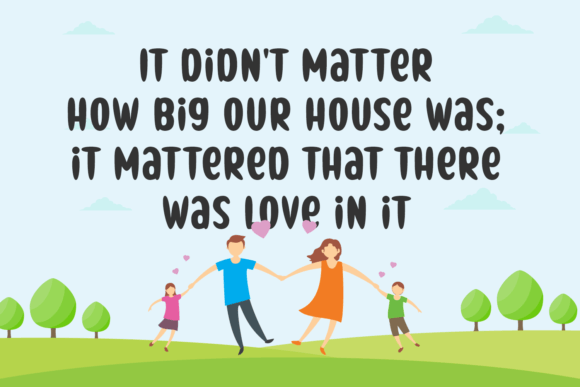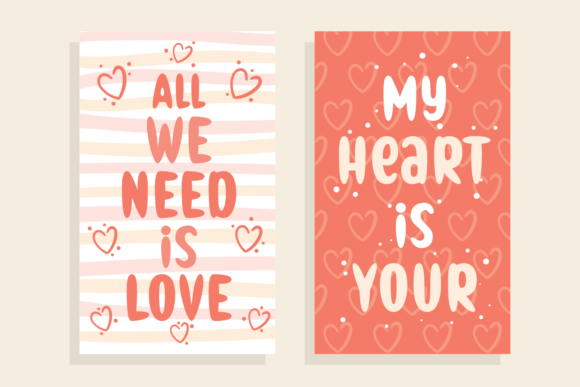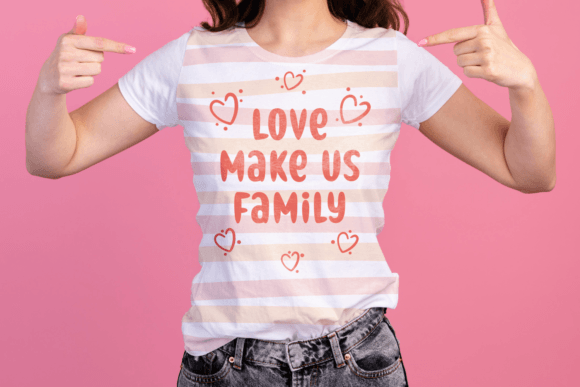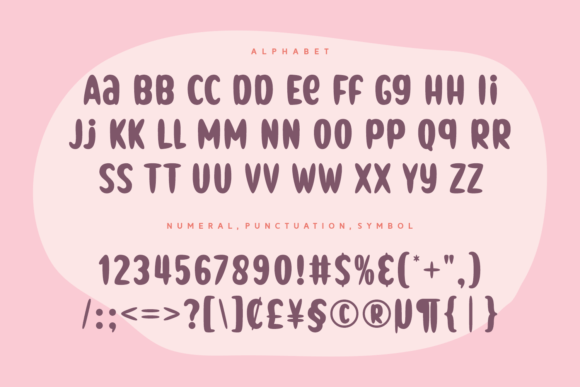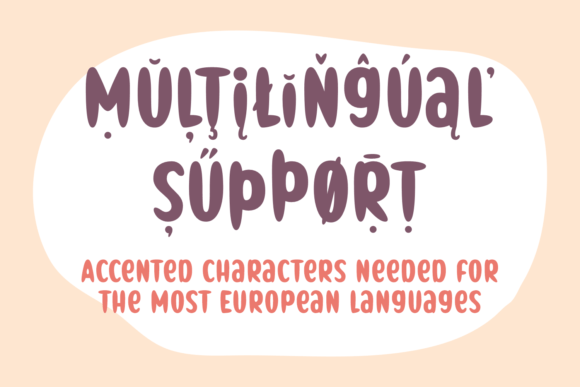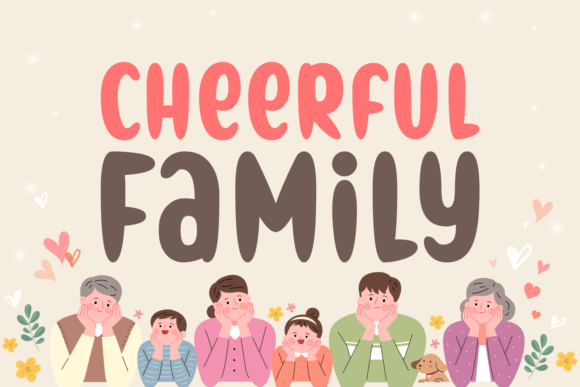
Introducing Cheerful Family Font: The Perfect Addition to Your Design Arsenal
Are you tired of using the same old fonts in your designs? Do you want to add a playful touch to your invitations, cards, logos, and more? Look no further than Cheerful Family Font, a fun and friendly script font that’s sure to bring a smile to your face. In this article, we’ll dive into the world of Cheerful Family Font and explore its features, benefits, and uses.
What is Cheerful Family Font?
Cheerful Family Font is a script font that exudes a whimsical feel with its light-hearted curves and bouncy baseline. Its unique design makes it perfect for adding a playful touch to any design, from kids’ party invitations to brand logos. This font is sure to capture the attention of your audience and leave a lasting impression.
Key Features of Cheerful Family Font
- Whimsical Design: Cheerful Family Font boasts a unique and playful design that’s sure to add a touch of fun to your designs.
- Light-Hearted Curves: The font’s curves are smooth and light-hearted, giving it a friendly and approachable feel.
- Bouncy Baseline: The bouncy baseline adds a sense of energy and playfulness to the font, making it perfect for designs that need a little extra oomph.
- Versatile: Cheerful Family Font is perfect for a wide range of designs, from invitations and cards to logos and more.
Benefits of Using Cheerful Family Font
So why should you choose Cheerful Family Font for your designs? Here are just a few benefits of using this amazing font:
- Adds a Playful Touch: Cheerful Family Font is the perfect way to add a playful touch to your designs, making them more engaging and fun.
- Unique and Memorable: The font’s unique design makes it sure to leave a lasting impression on your audience.
- Easy to Read: Despite its playful design, Cheerful Family Font is easy to read, making it perfect for designs that need to convey a message.
- Customizable: Cheerful Family Font is highly customizable, allowing you to adjust the font size, color, and more to fit your design needs.
Uses for Cheerful Family Font
So what can you use Cheerful Family Font for? The possibilities are endless! Here are a few ideas to get you started:
- Invitations: Use Cheerful Family Font to create playful and fun invitations for kids’ parties, baby showers, and more.
- Cards: Add a personal touch to your greeting cards with Cheerful Family Font.
- Logos: Use Cheerful Family Font to create a unique and memorable logo for your brand.
- Signs: Cheerful Family Font is perfect for creating eye-catching signs for events, sales, and more.
Tips for Using Cheerful Family Font
Here are a few tips for getting the most out of Cheerful Family Font:
- Use it Sparingly: While Cheerful Family Font is playful and fun, it can be overwhelming if used too much. Use it sparingly to add a touch of whimsy to your designs.
- Pair it with Other Fonts: Cheerful Family Font pairs well with other fonts, such as sans-serif fonts. Experiment with different font combinations to find the perfect look for your design.
- Adjust the Font Size: Adjust the font size to fit your design needs. A larger font size can add emphasis, while a smaller font size can add detail.
In conclusion, Cheerful Family Font is a fun and friendly script font that’s perfect for adding a playful touch to your designs. With its whimsical design, light-hearted curves, and bouncy baseline, this font is sure to capture the attention of your audience and leave a lasting impression. Whether you’re a designer, crafter, or DIY enthusiast, Cheerful Family Font is a great addition to your design arsenal.